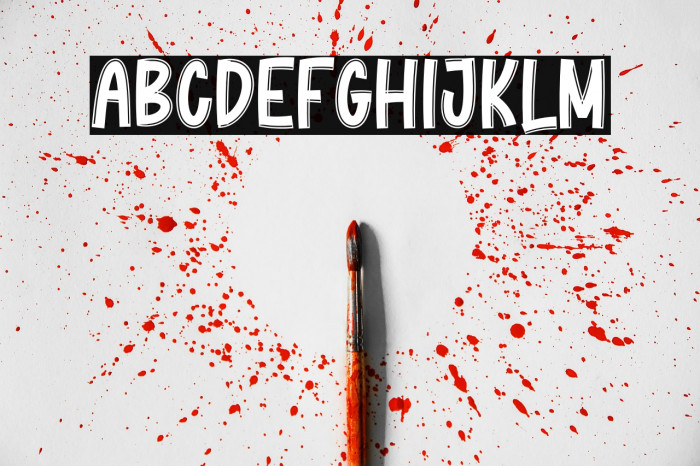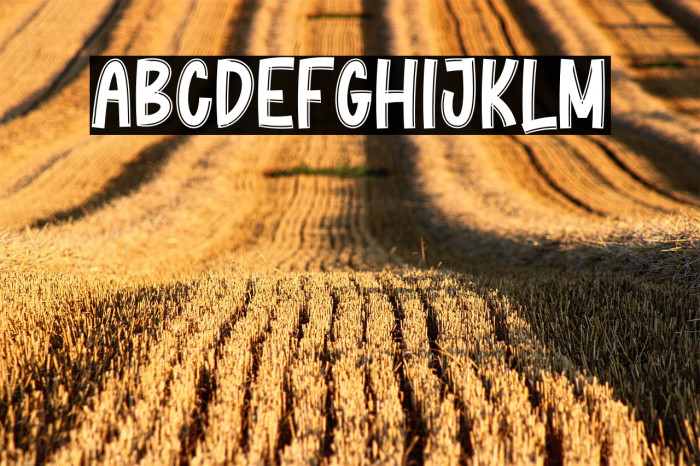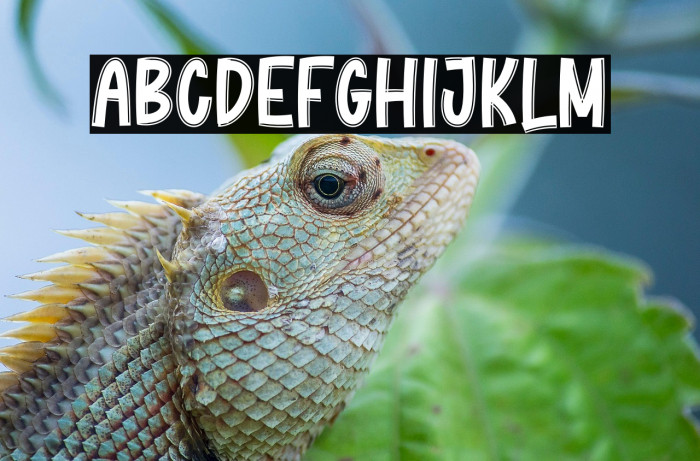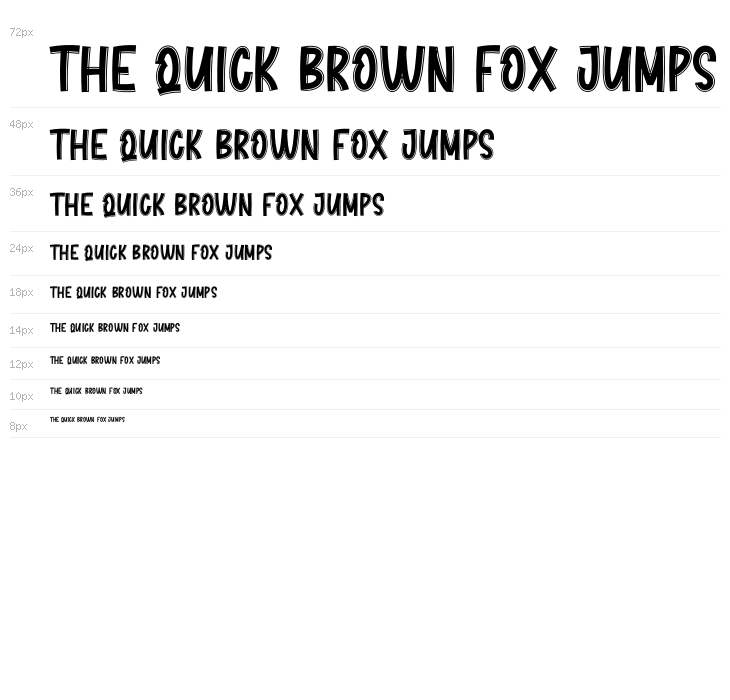
Winter Cookies Font
Winter Cookies Description
This playful and bold font features a unique, hand-drawn style with a whimsical touch. The characters are slightly irregular, giving them a lively and dynamic appearance. The strokes are thick and consistent, with a slight curve that adds to the font's friendly and approachable feel. The uppercase and lowercase letters maintain a consistent style, while the numbers and special characters complement the overall design. This font is perfect for projects that require a fun and engaging look, such as children's books, playful branding, or festive invitations.
| Overall Style | Playful, Whimsical, Hand-drawn |
| Use Case | Headlines, Logos, Invitations |
| Proposed Projects | Ideal for children's books, playful branding, festive invitations, and creative posters. |